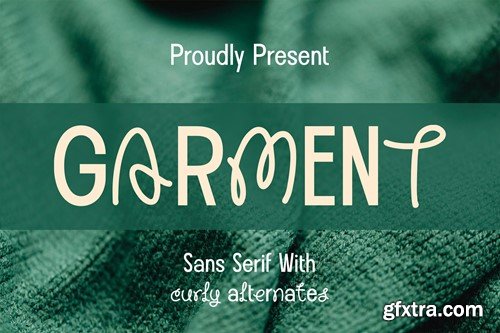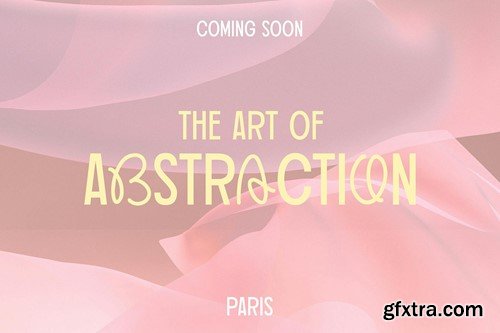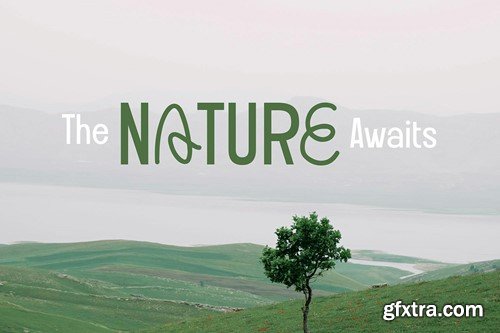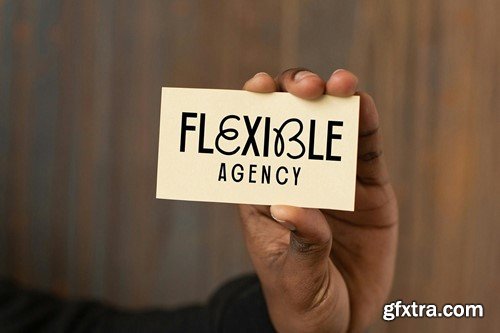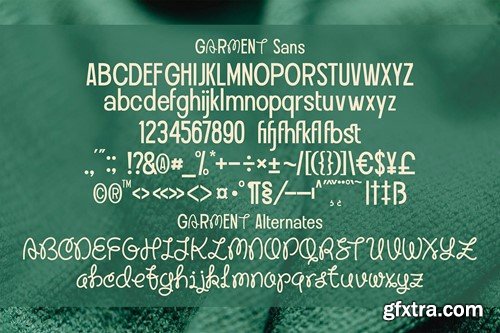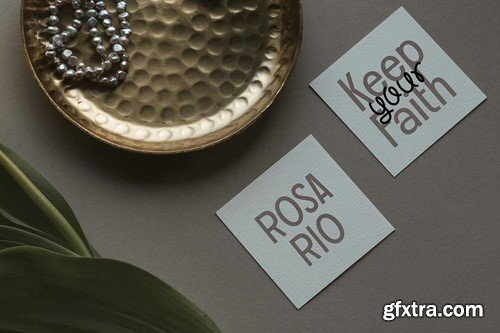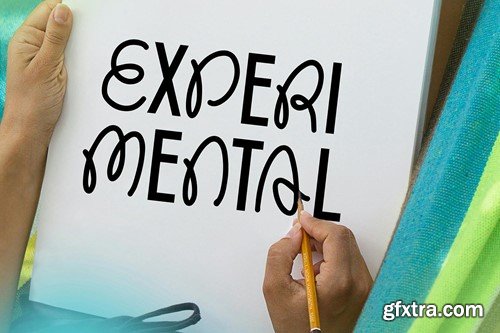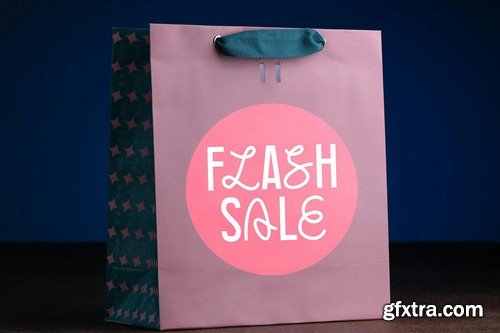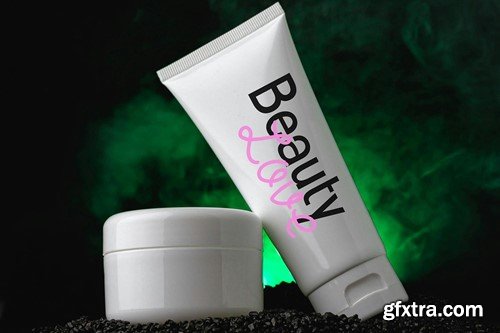
服装 - Sans Serif 字体 LL36QUJ
Garment - Sans Serif Font
Garment - Sans Serif Font contains a lowercase, uppercase, symbol, and also supports multi-language. There’s a lot of ligature in this font. Garment - Sans Serif Font also comes with ligatures, stylistic alternates and many more. this font suitable for fashion, branding, catalog and other design that you want.